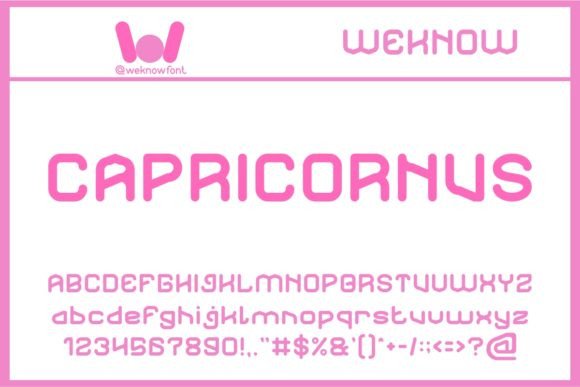
I still remember the frustration of working on a project, hours spent crafting the perfect design, only to hit a roadblock: finding the right font. My client wanted something modern, edgy, and tech-savvy – a font that would make their brand stand out in a crowded market. After scouring the internet, I stumbled upon Capricornus Font, a techno-sci-fi display font that would change the game.
First Impressions: A Love Affair with Capricornus
As soon as I opened Capricornus, I knew I had found something special. The sleek lines, futuristic vibe, and versatility of this font won me over. Here’s what I love about it:
- ✨ Unique and eye-catching design: perfect for making a statement
- ✅ Highly legible: even at small sizes, it remains clear and readable
- 💻 Techno-sci-fi feel: ideal for projects that require a futuristic edge
- 🎨 Extensive OpenType features: including glyphs, stylistic alternates, and more
The Honest Review: No Perfect Font is Perfect
While Capricornus is an amazing font, it’s not without its quirks. Here are a few things to keep in mind:
- 🤔 Limited use in body text: due to its display nature, it may not be the best choice for long blocks of text
- ⚠️ Some characters may require manual kerning: to achieve optimal spacing and readability
The Designer Inspiration: A Backstory
Capricornus was designed with the techno-sci-fi genre in mind. The creator, a passionate designer with a love for science fiction, wanted to craft a font that would capture the essence of this futuristic world. With its sleek lines, futuristic vibe, and extensive OpenType features, Capricornus is the perfect tool for designers looking to create stunning, otherworldly designs.
| Font Name | Capricornus Font |
| Author | weknow |
Q: What is the best use for Capricornus Font?
A: Capricornus is ideal for display purposes, such as logos, logotypes, headlines, and titles. It’s perfect for projects that require a techno-sci-fi feel, such as movie posters, game titles, or tech brand identities.
Q: Can I use Capricornus for body text?
A: While Capricornus is highly legible, it’s not recommended for long blocks of body text. Its display nature makes it better suited for headlines, titles, and short paragraphs.
Q: Does Capricornus support OpenType features?
A: Yes, Capricornus features extensive OpenType support, including glyphs, stylistic alternates, and more. This allows for a high degree of customization and flexibility in your designs.